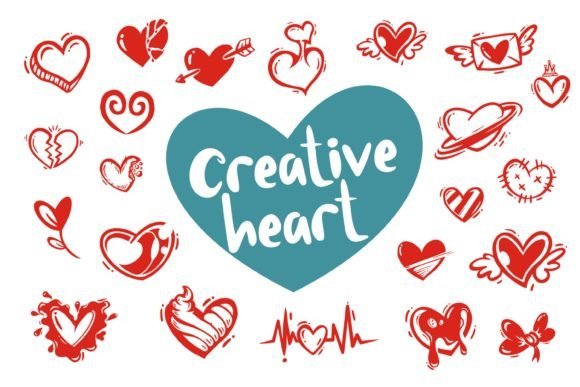
That’s where the Creative Heart Font comes in – a charming, hand-drawn dingbats font designed to add a personal touch to your designs. Whether you’re crafting, digital designing, or creating presentations, this font is the perfect companion to elevate your projects. Its romantic and playful vibe makes it ideal for greeting cards, invitations, and other special occasions.
What sets the Creative Heart Font apart is its versatility and ease of use. With this font, you can infuse your designs with a unique, handmade feel that’s sure to leave a lasting impression. As a designer, you’ll appreciate the time-saving aspect of having a high-quality font at your fingertips, allowing you to focus on what you do best – creating something truly remarkable.
Creative Heart Font Key Features
- Font Family: Creative Heart Font has a unique, hand-drawn design with a mix of modern and classic elements.
- Unique Characteristics: Features a distinctive heart-shaped design element, adding a touch of whimsy and creativity to any design.
Designer Review: Creative Heart Font
At first glance, Creative Heart Font ✨ seems like the perfect addition to any design project. The whimsical, handwritten feel immediately grabs your attention and adds a touch of personality to any text. The font’s playful nature makes it ideal for creative industries like advertising, marketing, and even social media platforms.
- Works well for: Creative industries, Social media, Advertising, Marketing
- Perfect for: Headlines, Captions, Quotes, and other short text snippets
- Recommended for: Branding, Packaging, and any design project where a touch of whimsy is needed
However, as with any font, there are some limitations to consider. ⚠️ The font’s size and style may not be suitable for large blocks of text, and the handwritten feel can sometimes make it difficult to read. Additionally, the font’s creative nature may not be the best choice for more formal or professional projects.
The Creative Heart Font is perfect for:
- Valentine’s Day and love-themed designs.
- Children’s book illustrations and storybooks.